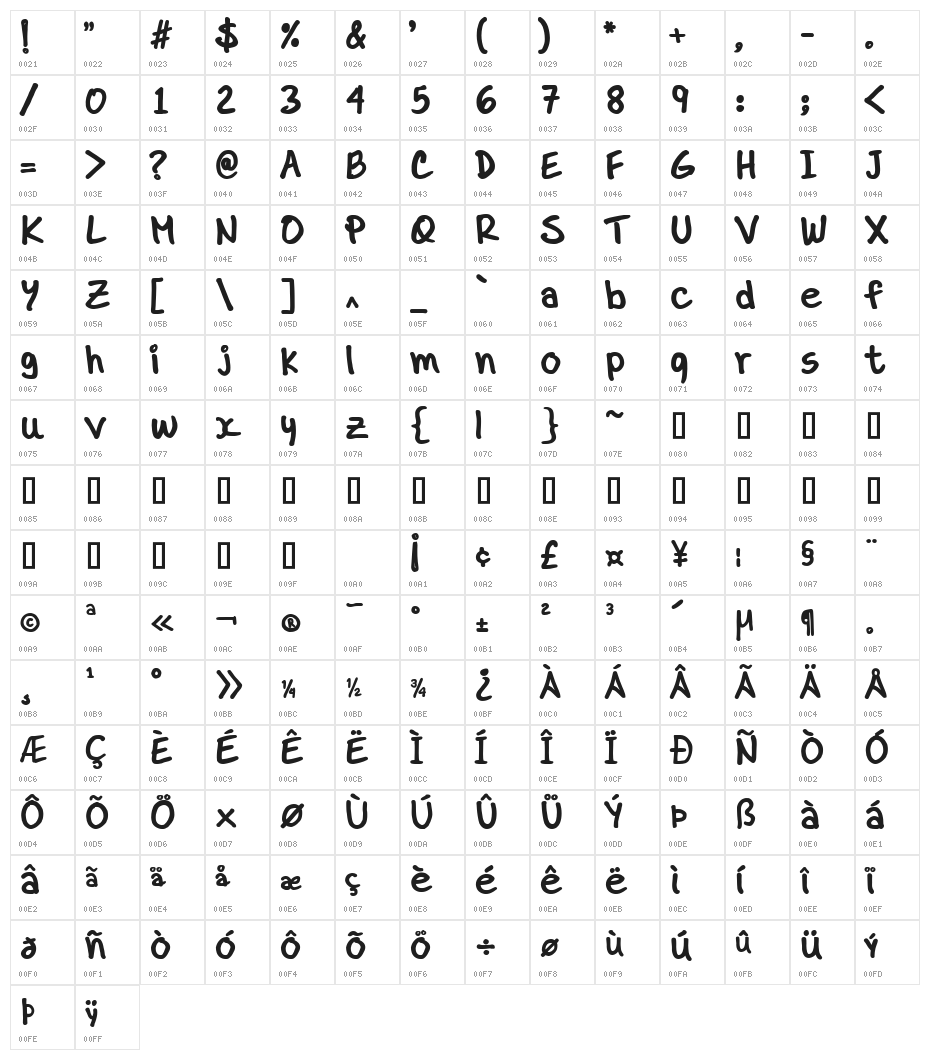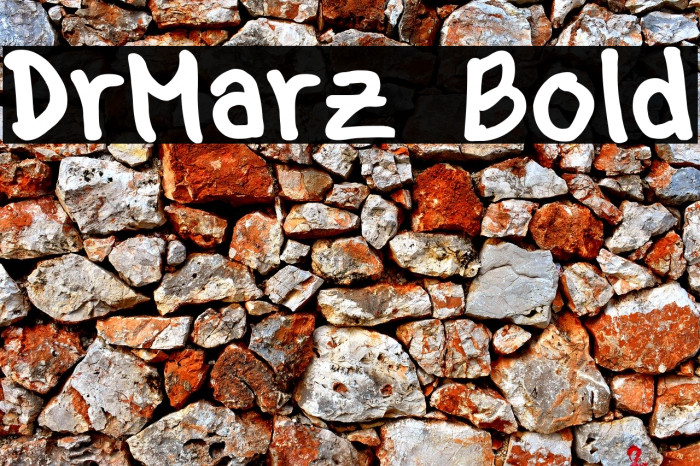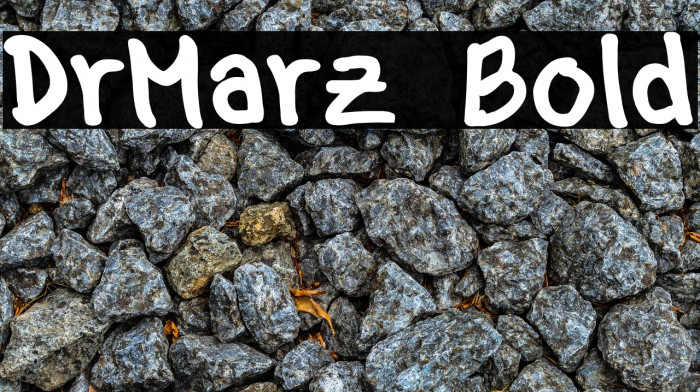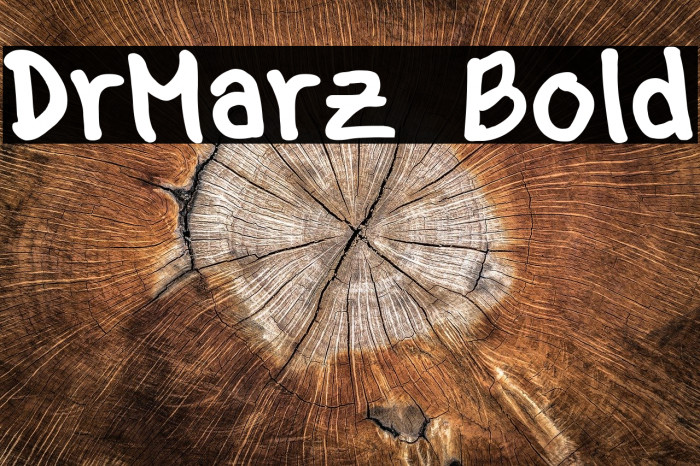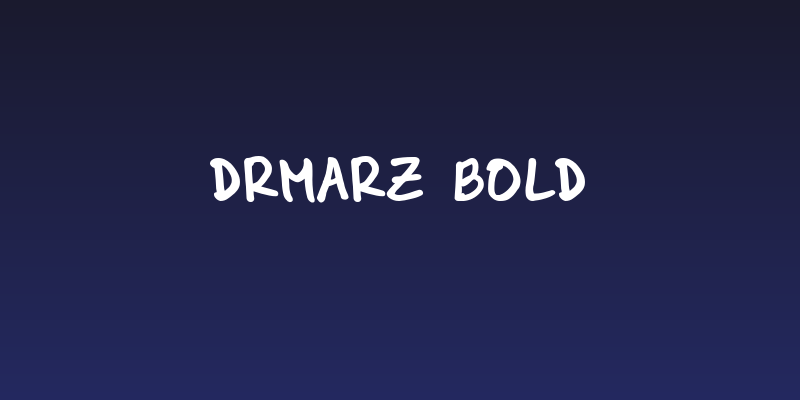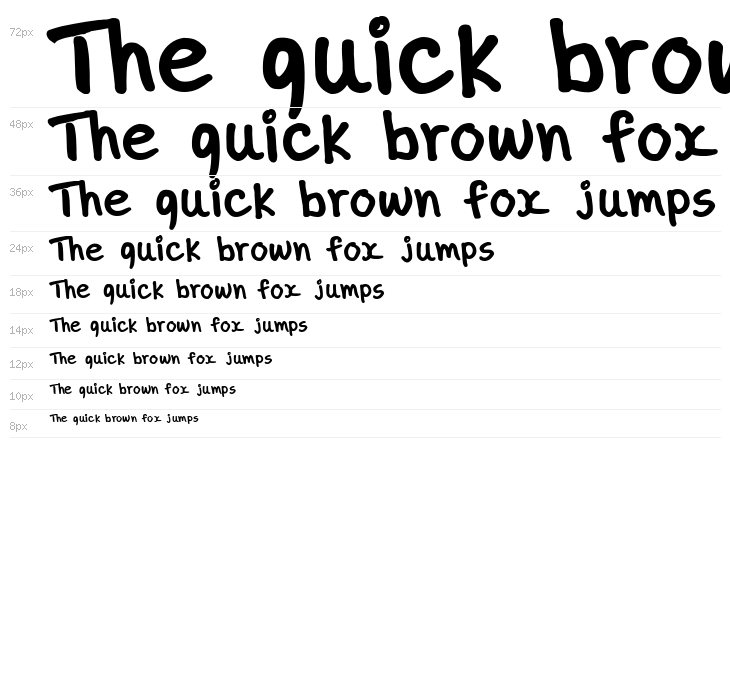
DrMarz Bold Font
DrMarz Bold Description
This font features a playful and bold handwritten style, characterized by its thick strokes and rounded edges. The letters are slightly irregular, giving it a casual and friendly appearance. The uppercase and lowercase letters maintain a consistent style, with a noticeable bounce and flow that adds to its charm. Numbers and special characters are designed to match the overall aesthetic, ensuring a cohesive look across all elements. This font is perfect for projects that require a touch of personality and warmth.
Overall StylePlayful, Casual
Use CaseHeadlines, Logos, Informal Text
Proposed ProjectsIdeal for children's books, playful branding, casual invitations, and social media graphics.